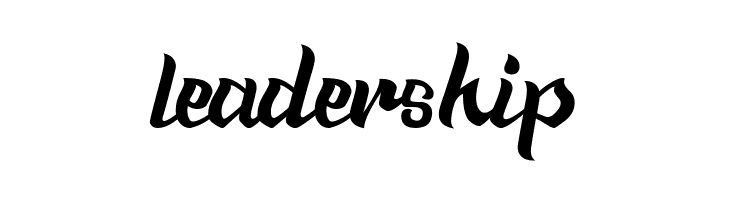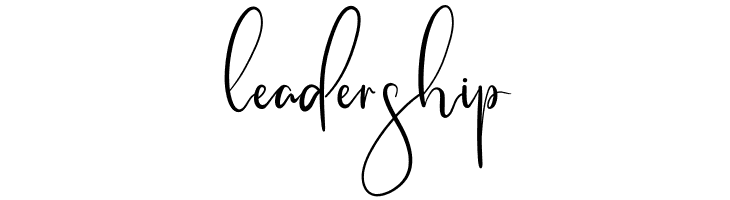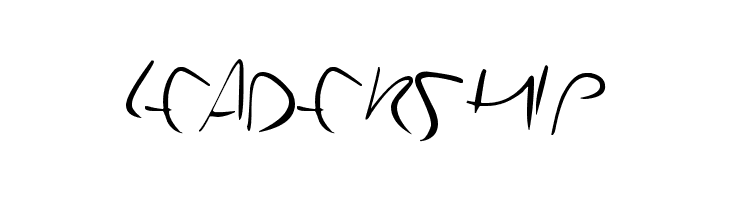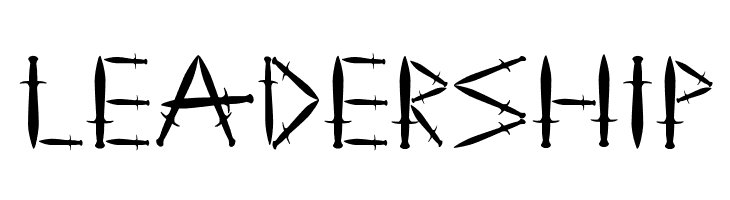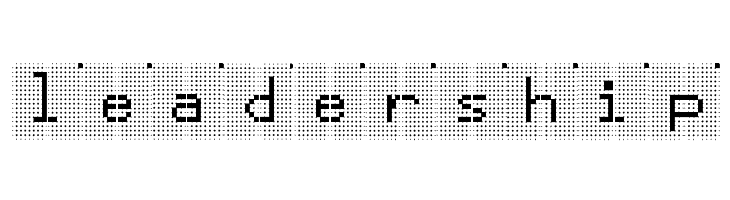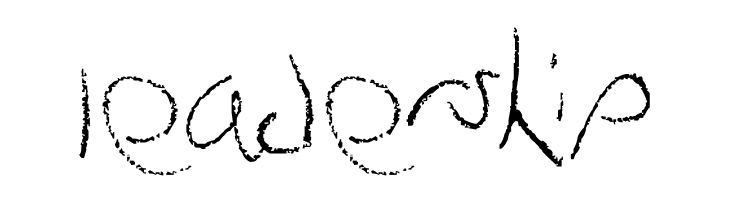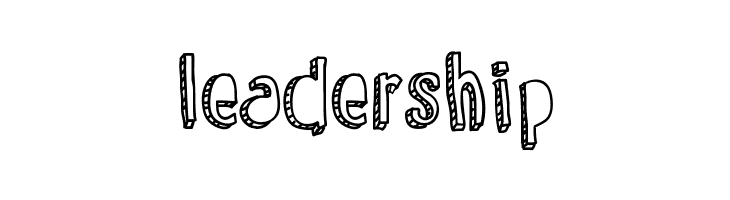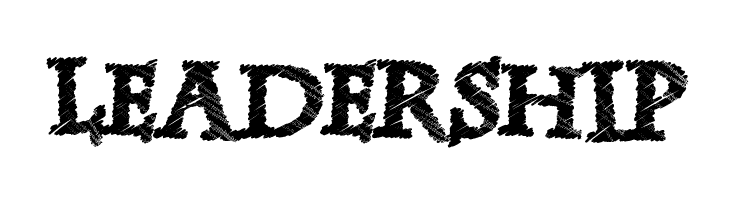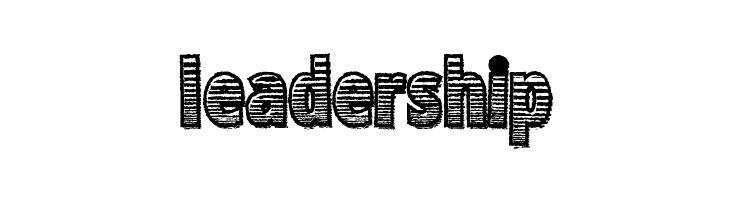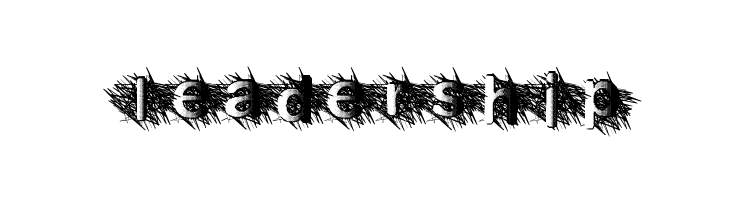
• yoursong
A flowing, cursive font with elegant, sweeping lines and connected characters.
• YourStar
• Yourstrully Free Regular
Elegant handwritten script font.
• YoursTruly
A playful handwritten font with a whimsical and casual style.
• YoursTruly
A dynamic handwritten font with fluid, expressive strokes and a distinct slant.
• Yukon Gold
A bold, distressed font with a vintage, weathered appearance.
• Yummah Strawberriez
• Yummy Lollipop
A playful, hand-drawn font with a doodle-like, three-dimensional style.
• YY Sword and Dagger
• Z001-ROM!"_ v5
• Zany Sharp
• Zarra Italic
A bold, italic, and cursive font with dynamic strokes and artistic flair.
• zasf
• Zdyk Scorpio
A bold, geometric font with a modern and assertive design.
• ZebraDisco
A bold, textured font with a zebra-like pattern, perfect for eye-catching designs.
• Zeebz
• ZEMBOOD
A bold, textured font with a distressed, vintage style.
• Zentropa
A bold, impactful typeface with thick, blocky characters.
• zeohand
A playful, informal handwritten font with a casual and approachable style.
• ZeroGene
A playful, hand-drawn font with bold, dynamic strokes.
• ZeroHype
A bold, textured font with a hand-drawn, sketch-like appearance.
• Zettama
A dynamic handwritten font with fluid strokes and elegant flair.
• zfigar
A modern, artistic font with geometric and abstract elements.
• zig zag zeg
• Zigie Zag